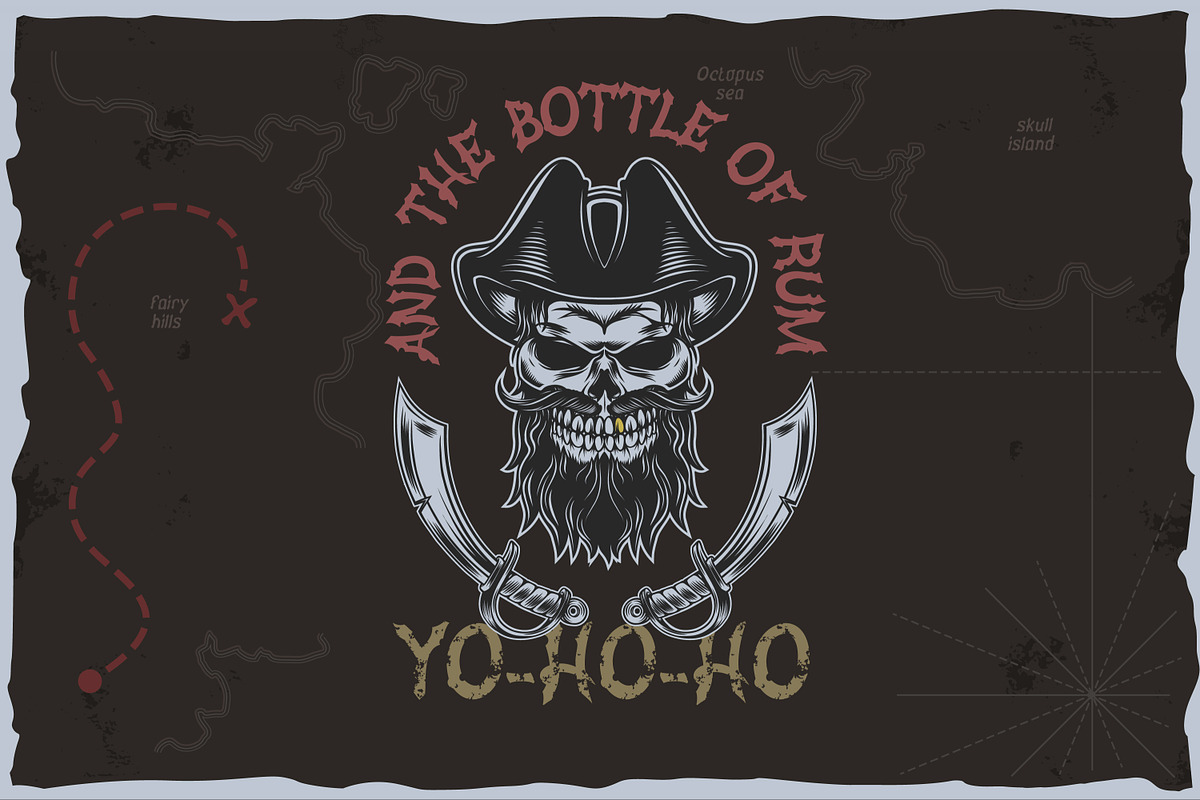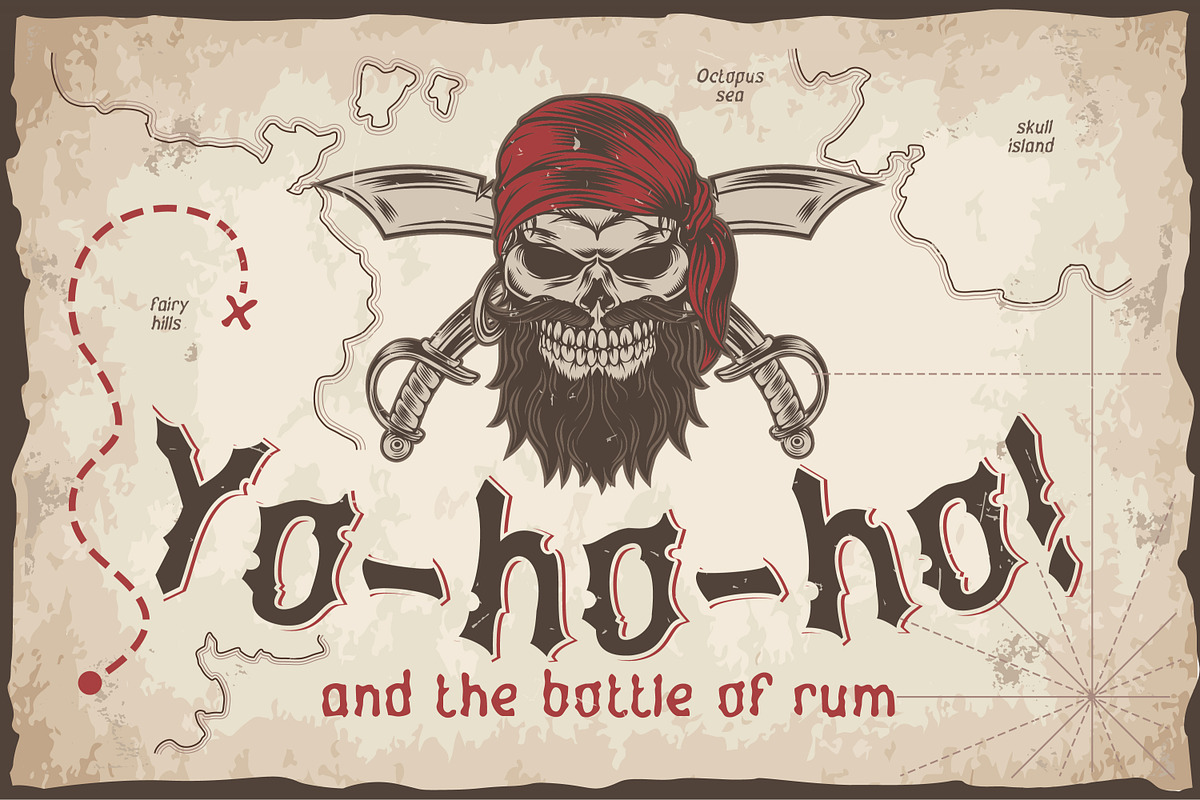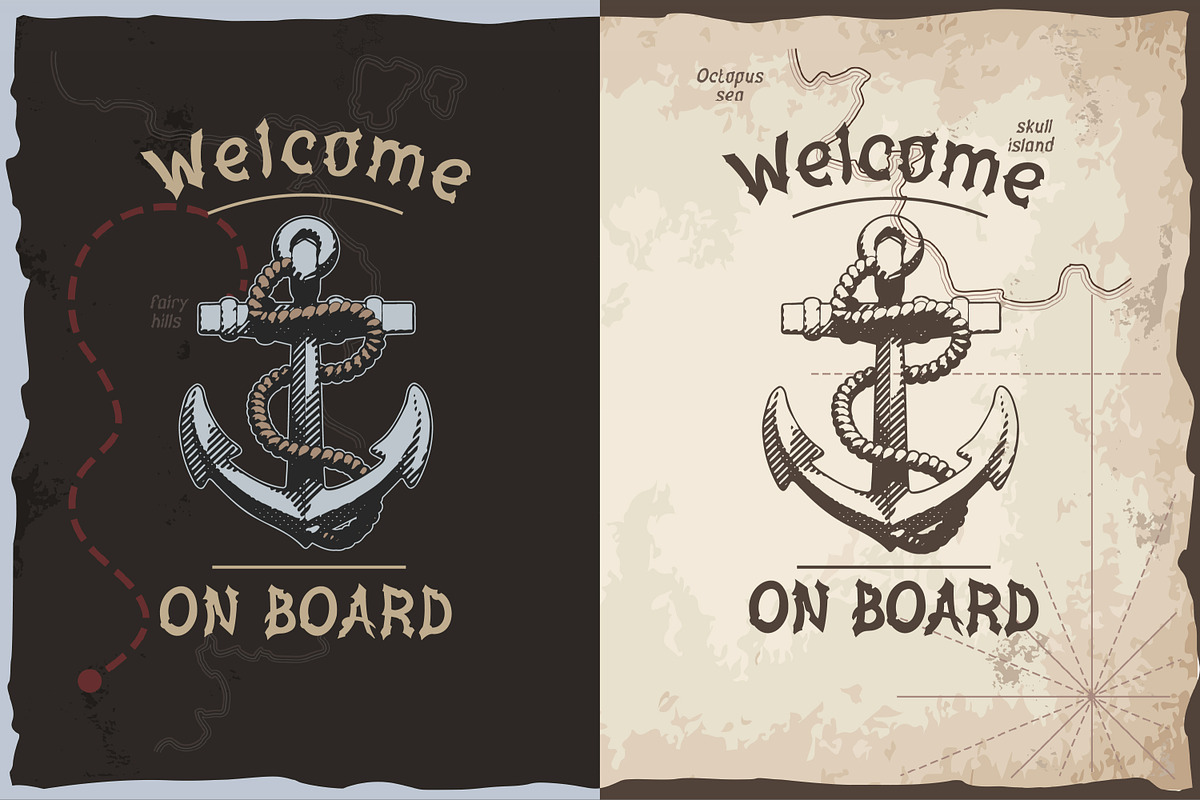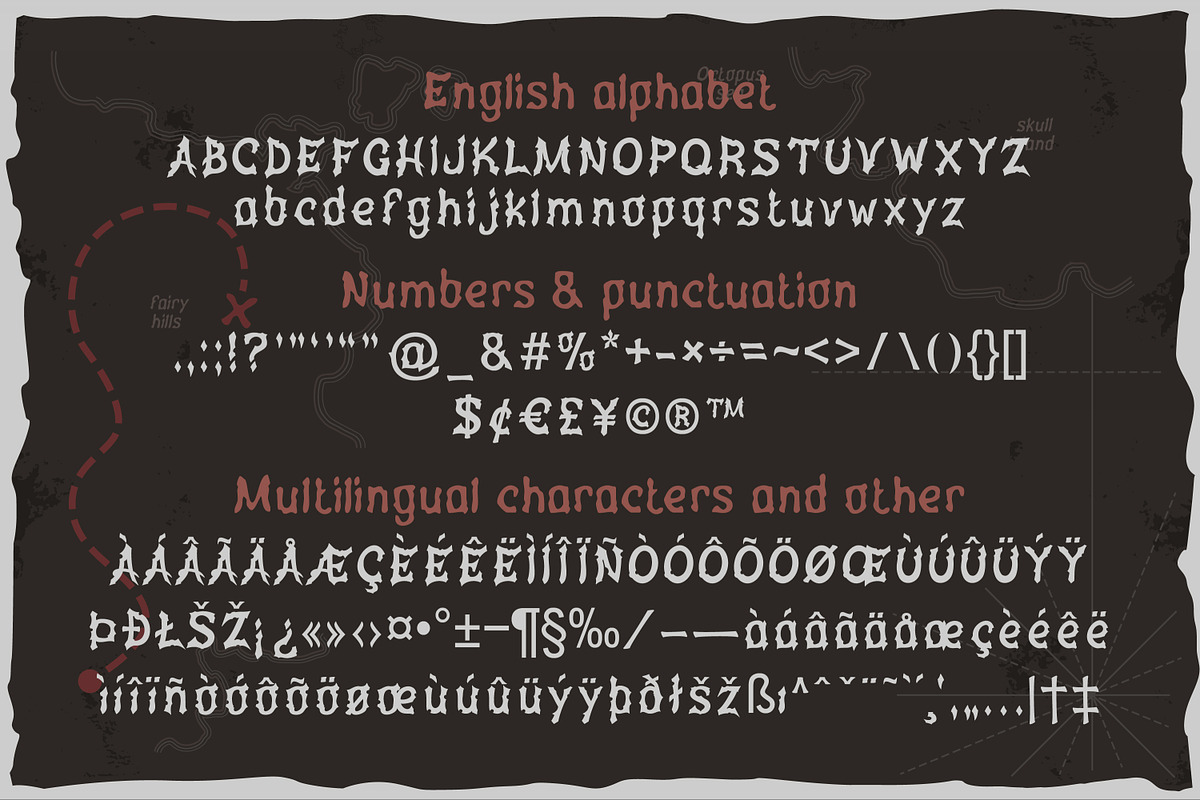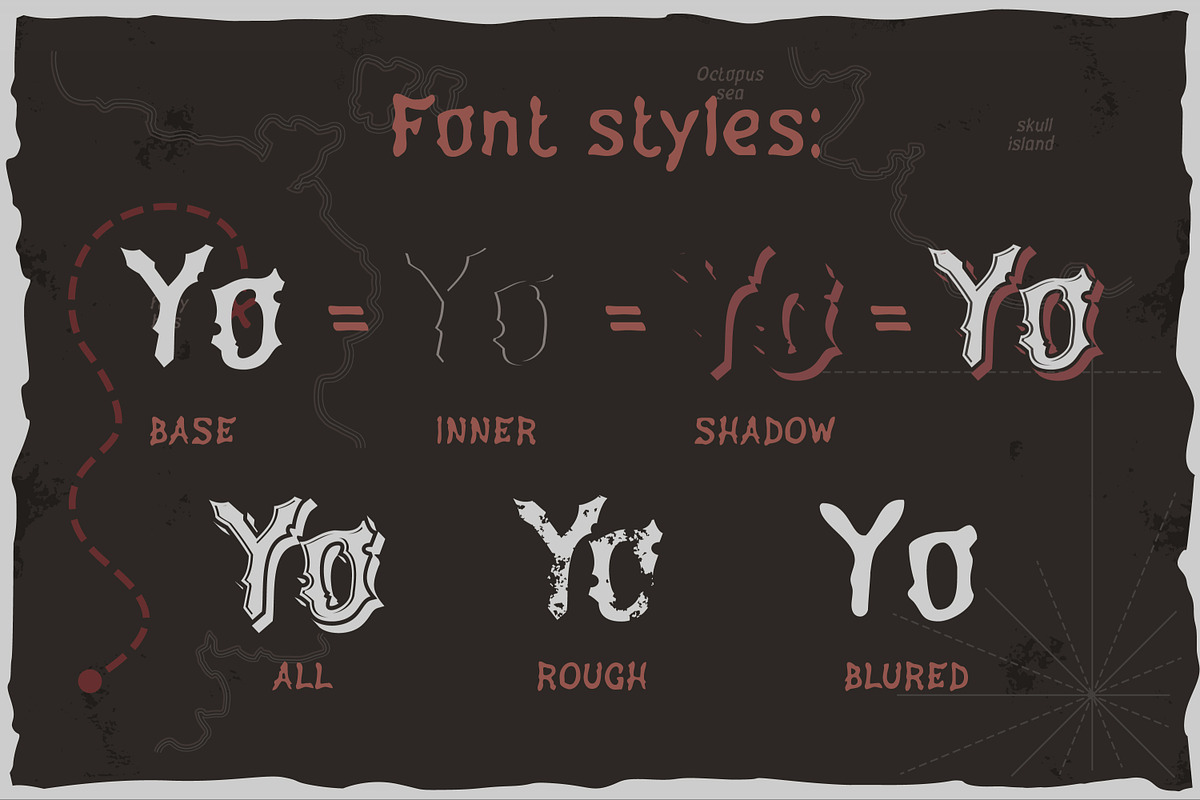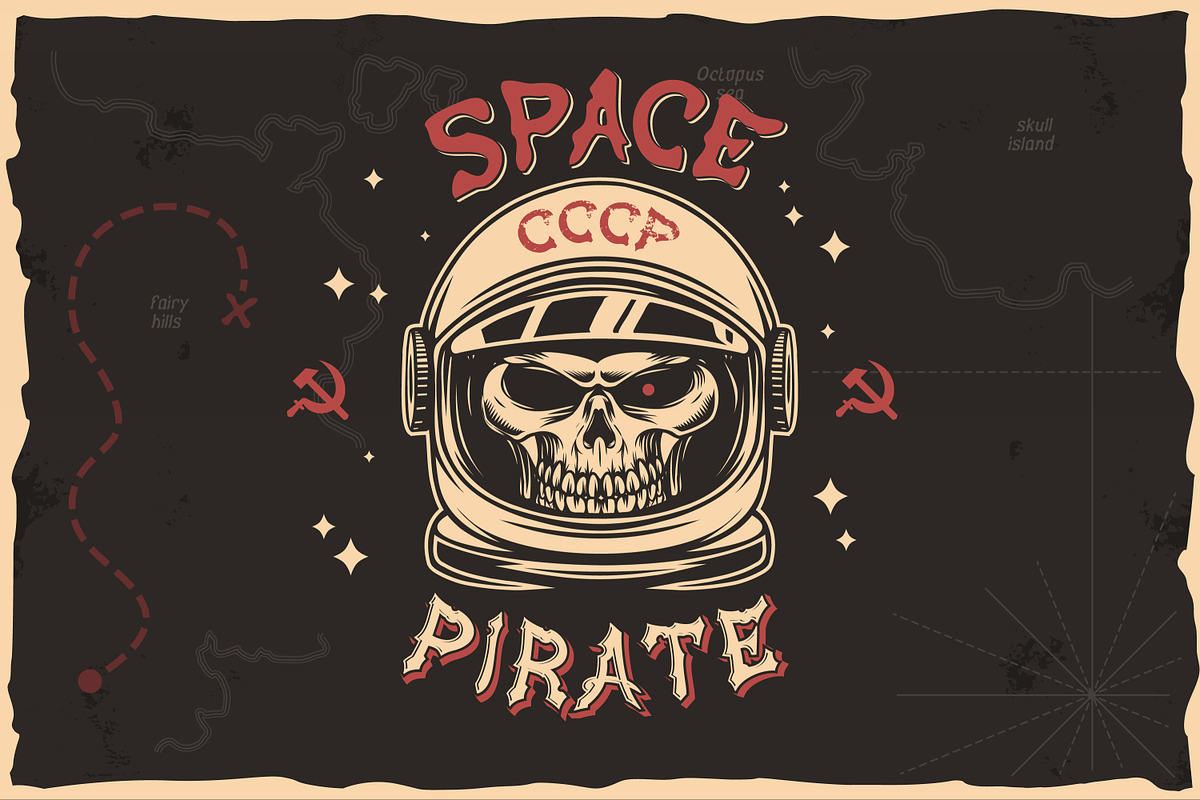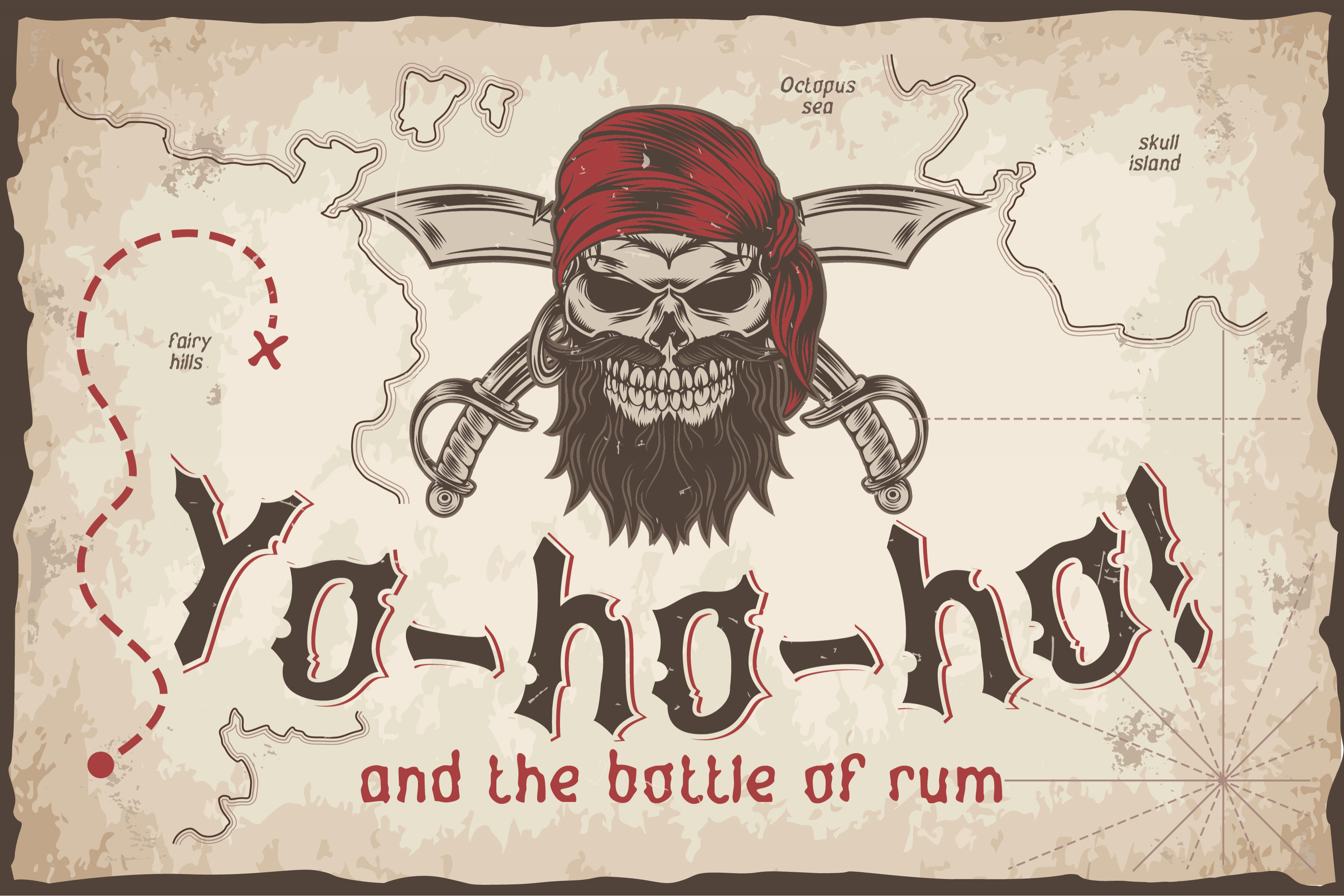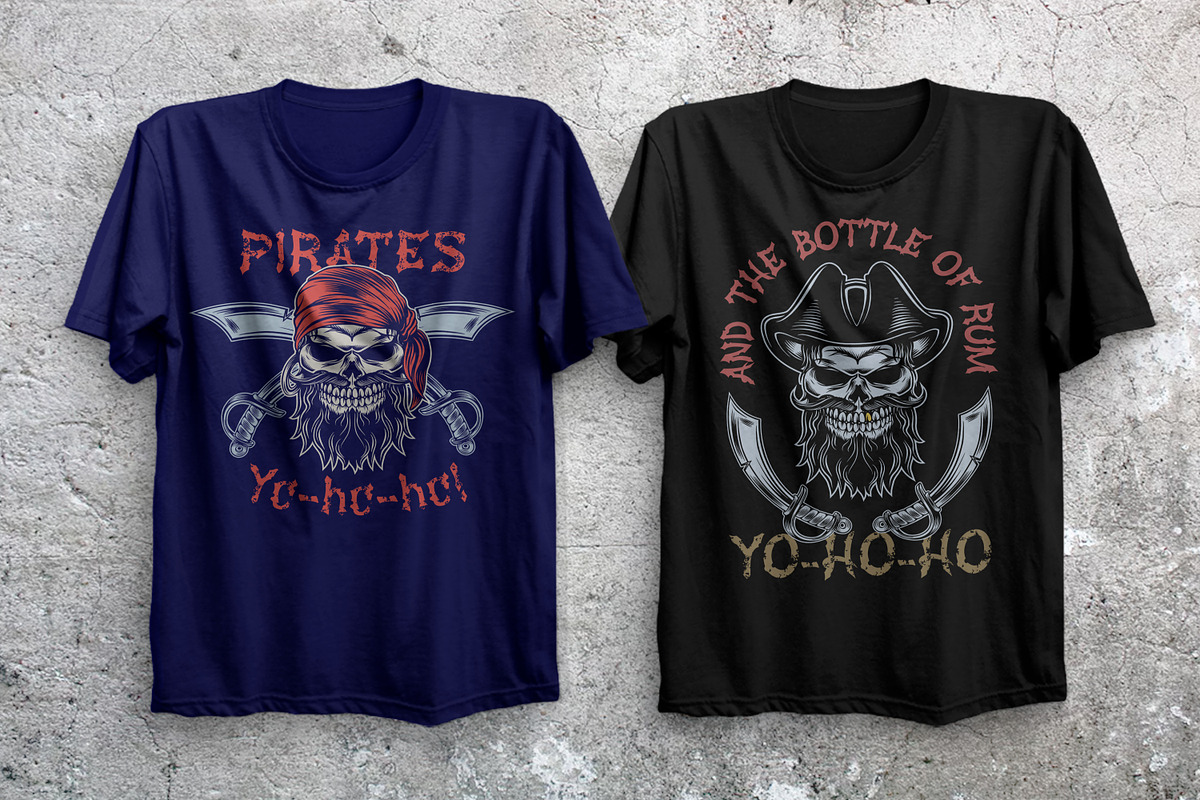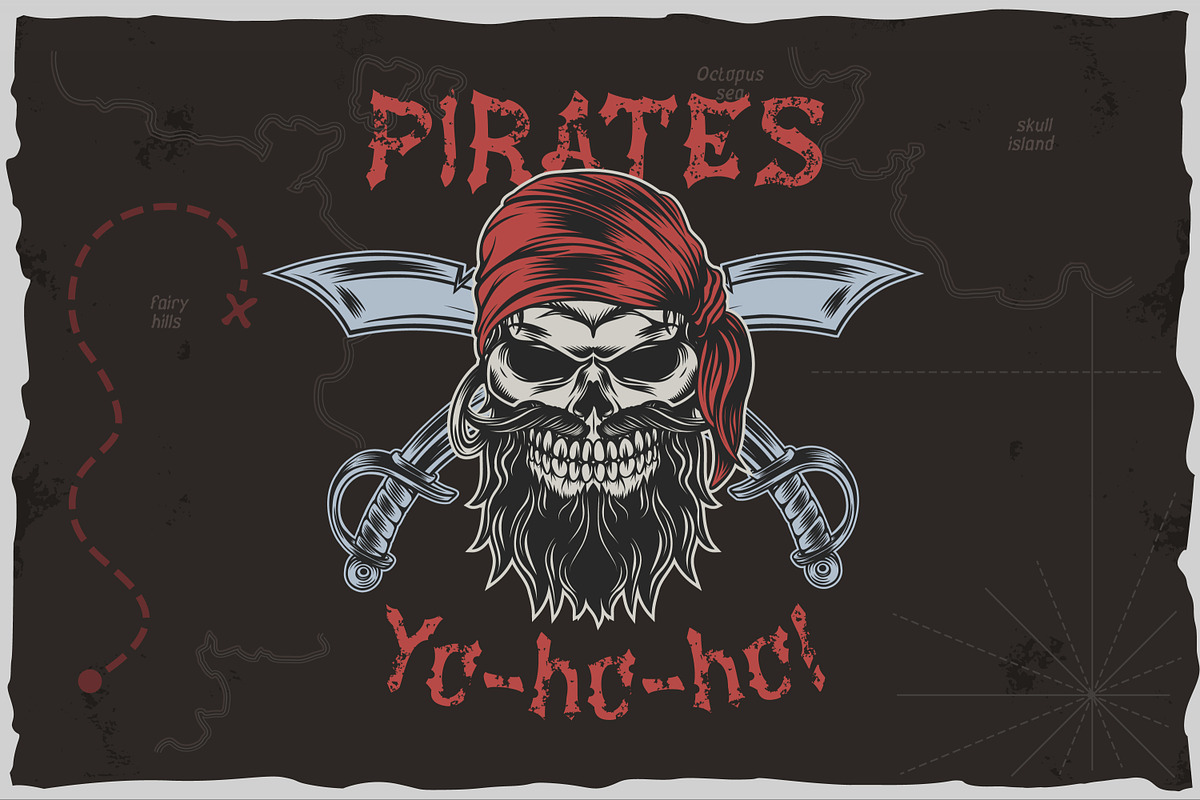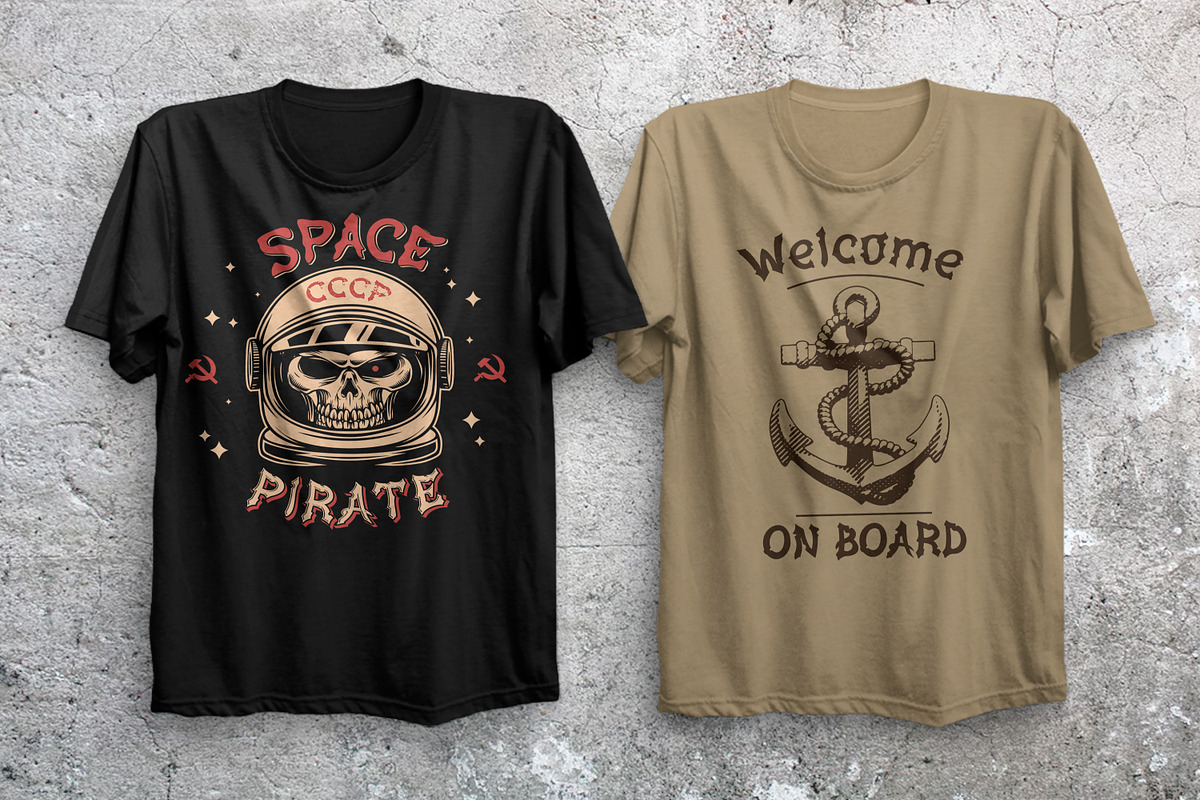
Yo-ho-ho. Vintage layered font
Yo-ho-ho. This is a vintage pirate style layered font. Good for for illustrations for T-shirts, alcohol labels, logos and corporate identity.
The font has 6 font styles, Uppercase, lowercase, numbers, punctuation and multilingual characters for each style.